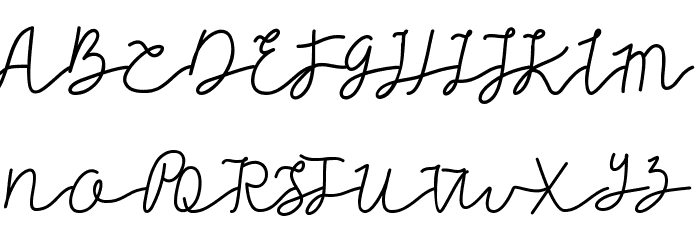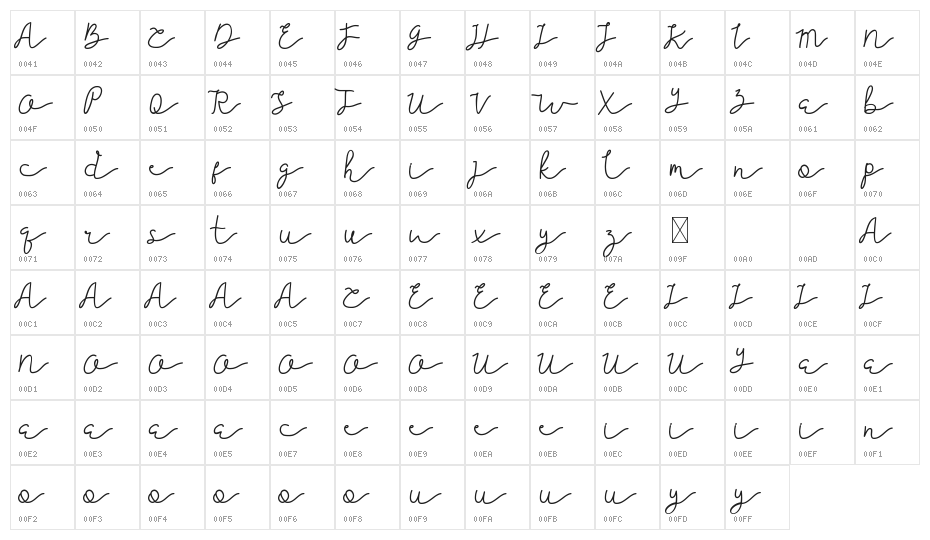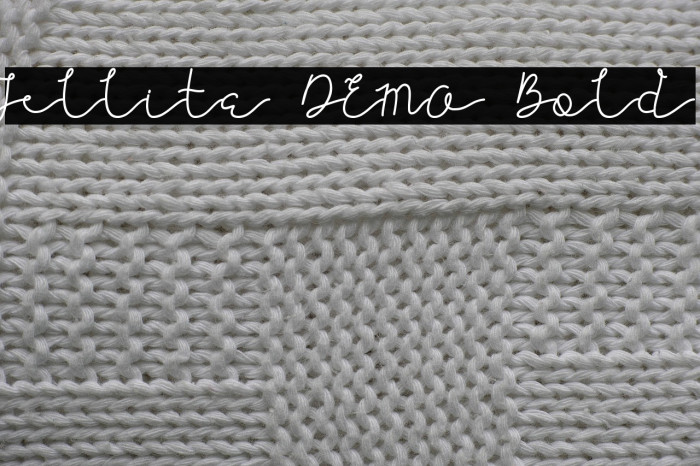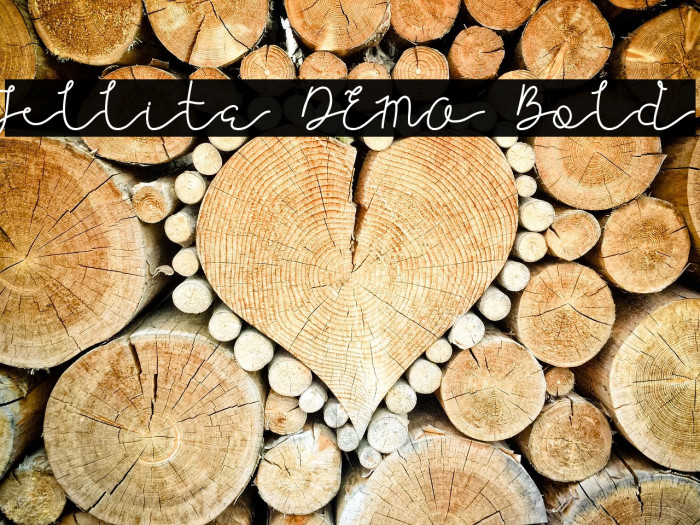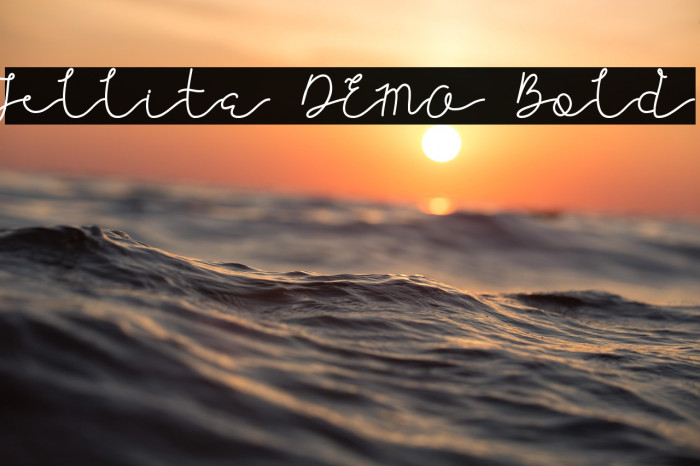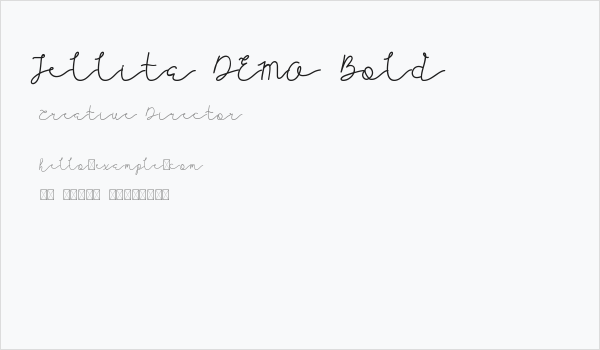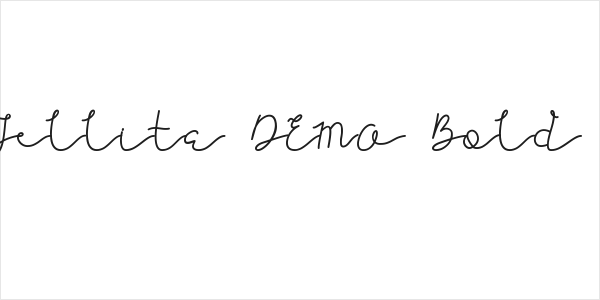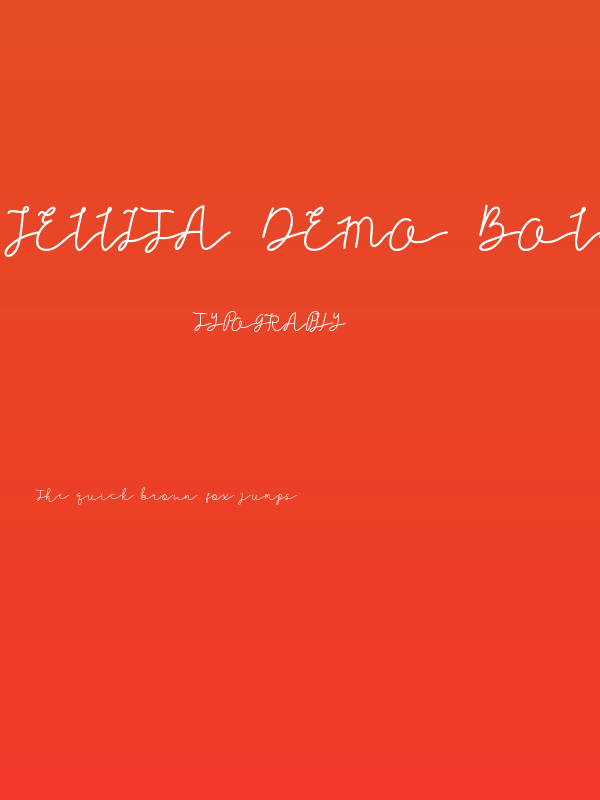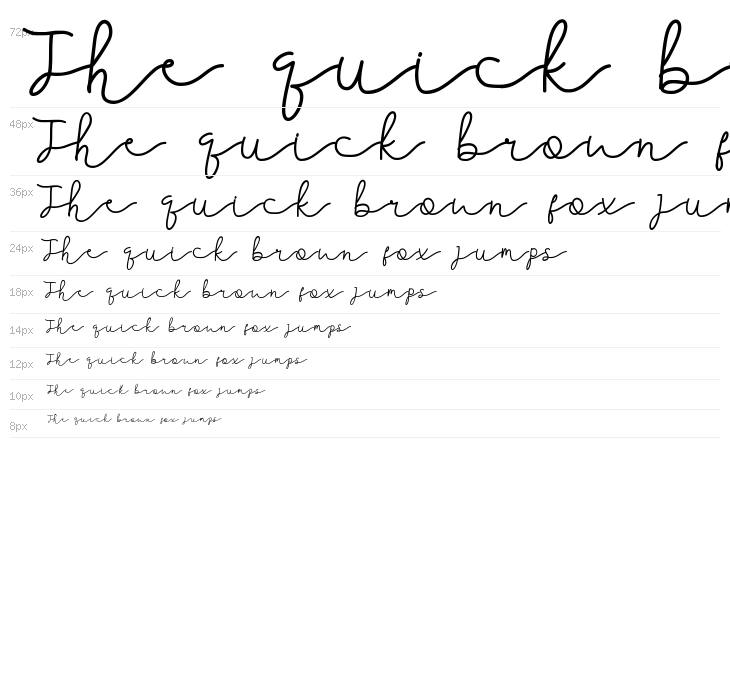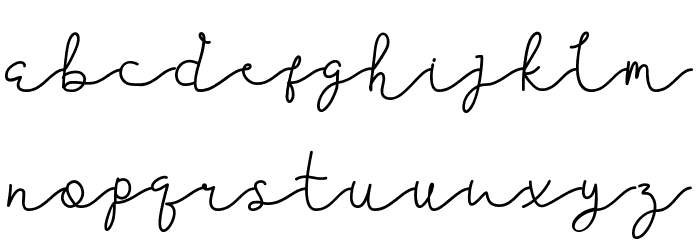
Jellita DEMO Bold Font
Jellita DEMO Bold Description
This font features a playful and elegant handwritten style, characterized by its fluid and continuous strokes. The letters are interconnected, creating a seamless flow that mimics natural handwriting. The uppercase and lowercase letters maintain a consistent style, with rounded edges and a slight slant that adds to its casual charm. The numerals and special characters are designed to match the overall aesthetic, ensuring a cohesive look across all text elements. This font exudes a sense of warmth and approachability, making it ideal for projects that require a personal touch.
| Overall Style | Casual, Elegant |
| Proposed Projects | Ideal for wedding invitations, personal branding, greeting cards, and social media graphics. |